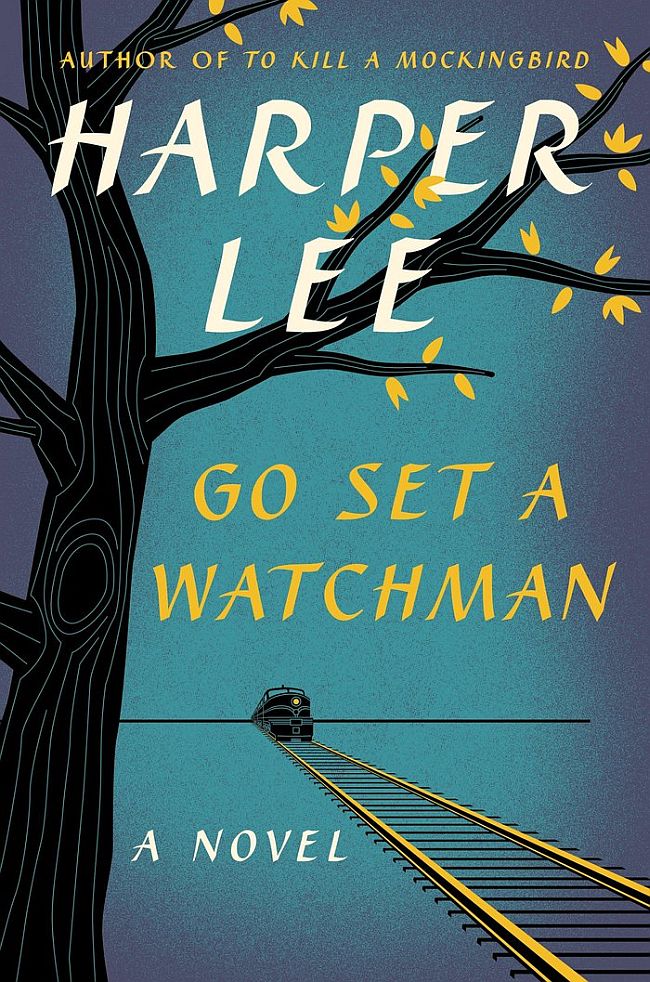
Go Set a Watchman Font
BookGo Set a Watchman is a novel by Harper Lee, the Pulitzer Prize-winning author of To Kill a Mockingbird. Set in the 1950s, Go Set a Watchman explores racial tensions in the South and explores the complex relationship between a father and daughter.
The book's title is written in the Caterina on the cover of the book. Caterina, a calligraphic decorative typeface created by Paul Veres in 1999, is offered in three weights: light, normal, and bold. According to the designer, Francis Ford Coppola personally chose the typeface for the introduction text in his film, "The Legend of Suriyothai."